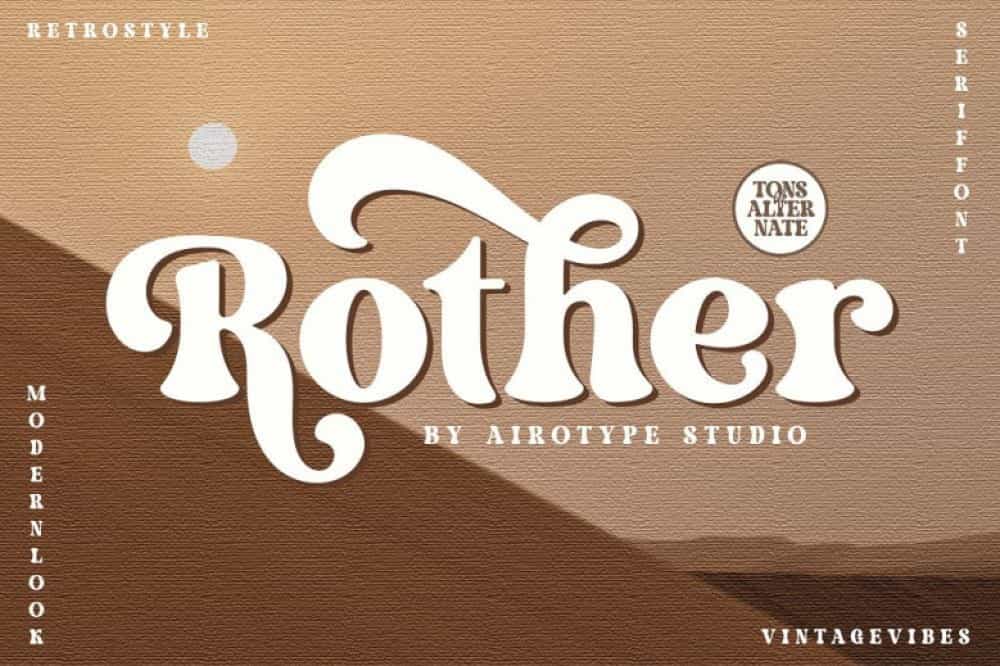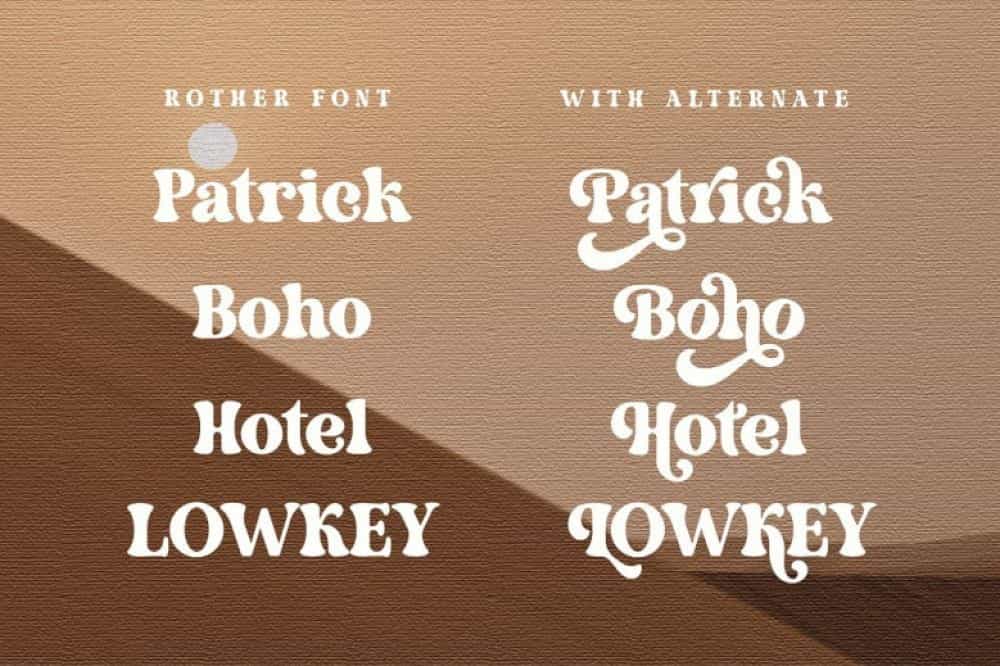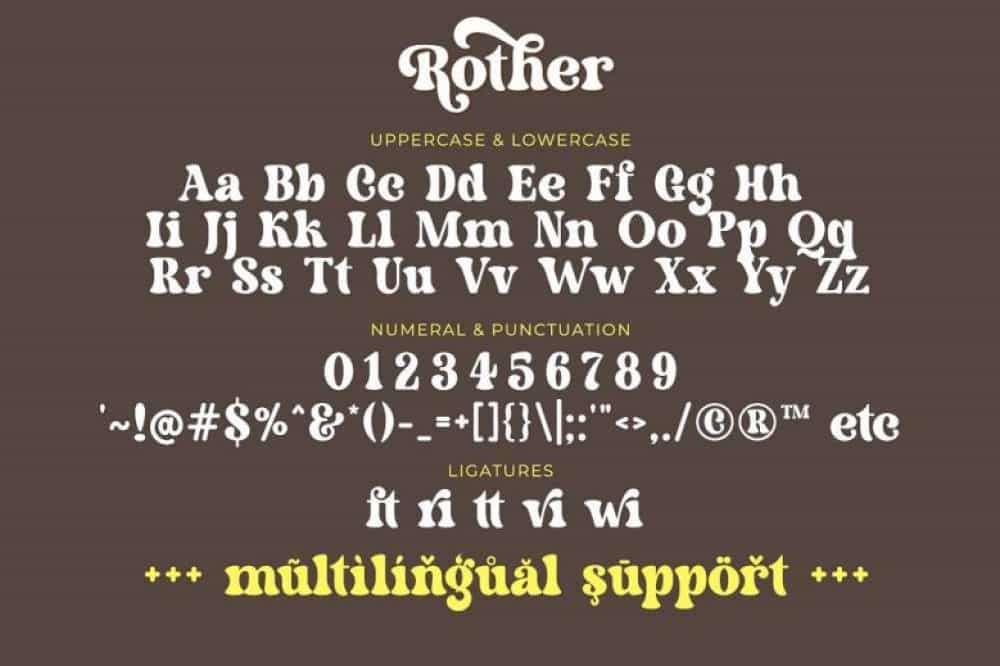
Rother is a sophisticated and yet daring serif font. Stylish and flexible to the core, you will fall in love with it and use it for gorgeous wedding invitations, beautiful stationary art, appealing social media posts, and what not!